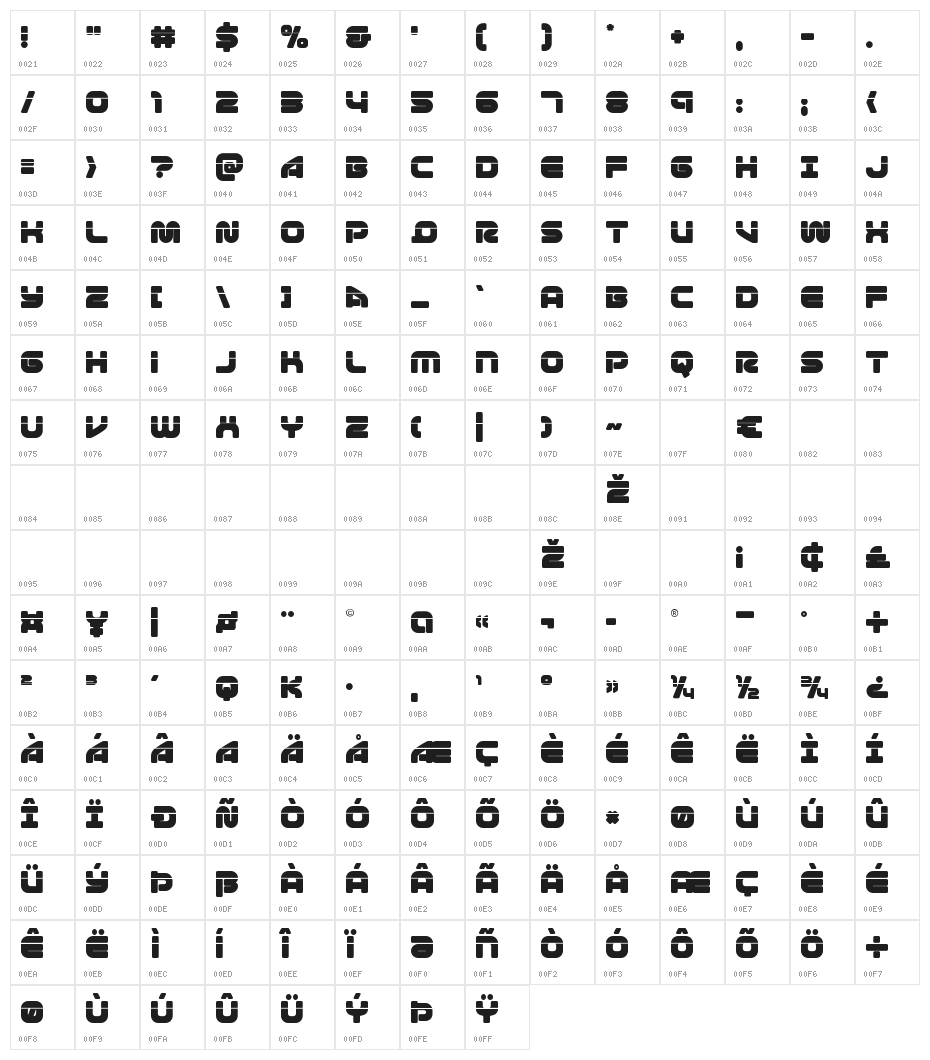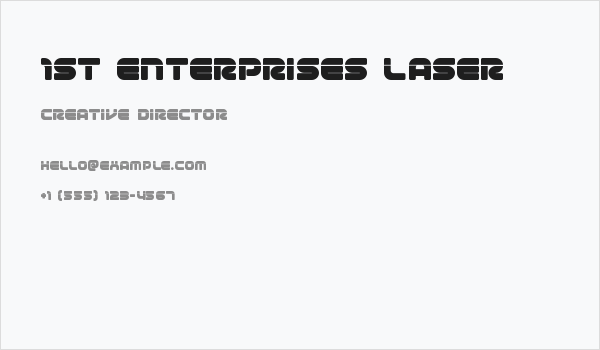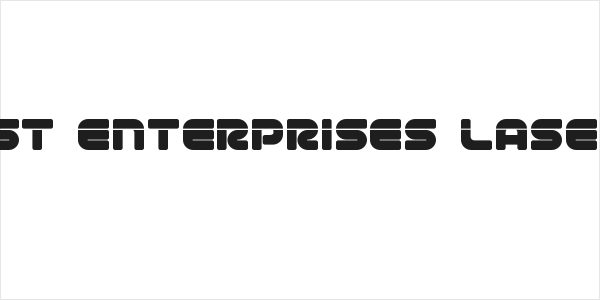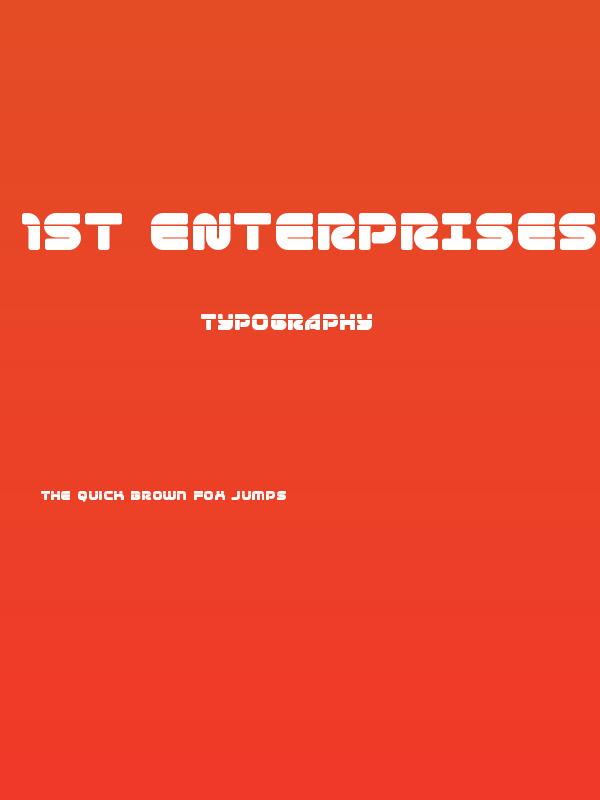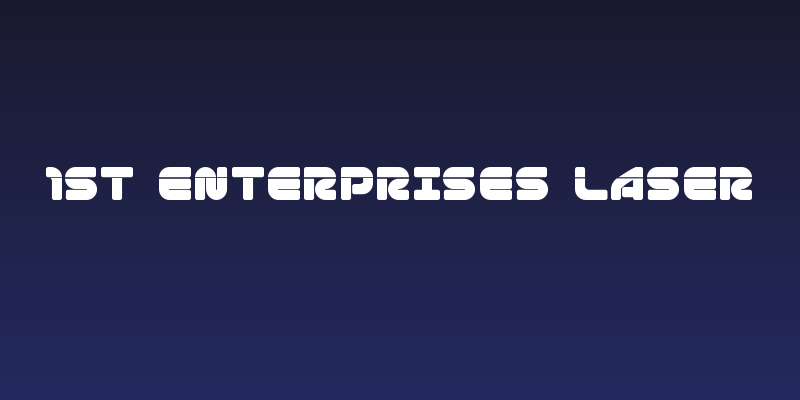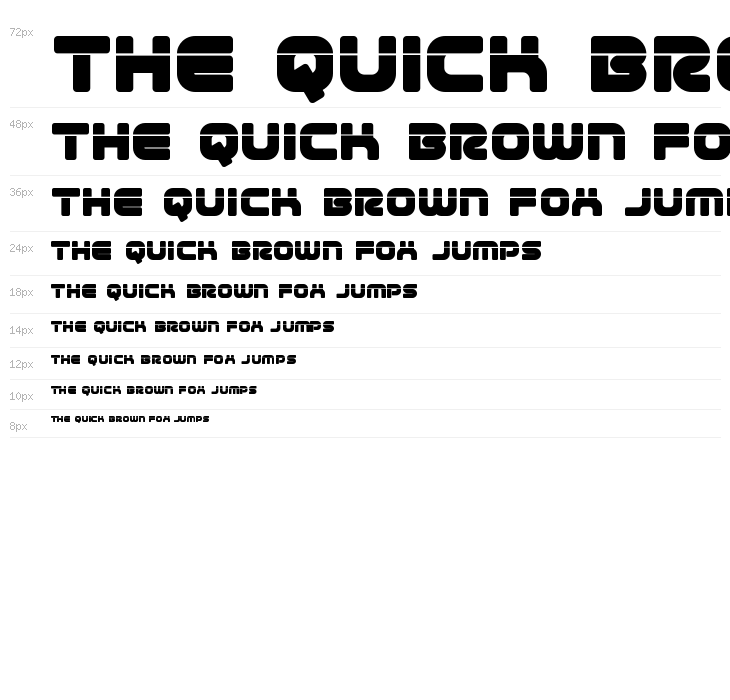
1st Enterprises Laser Font
1st Enterprises Laser Description
This font features a bold, futuristic design with rounded edges and a geometric structure. The characters are uniform in height, creating a cohesive and modern appearance. The font's style is reminiscent of digital or sci-fi themes, with a strong emphasis on straight lines and curves that blend seamlessly. The uppercase and lowercase letters maintain a consistent width, contributing to a balanced and harmonious look. The numerals and special characters are designed to match the overall aesthetic, ensuring versatility across various applications. This font is ideal for projects that require a contemporary and tech-savvy feel.
| Proposed Projects | Ideal for tech branding, sci-fi posters, video game titles, and digital interfaces. |